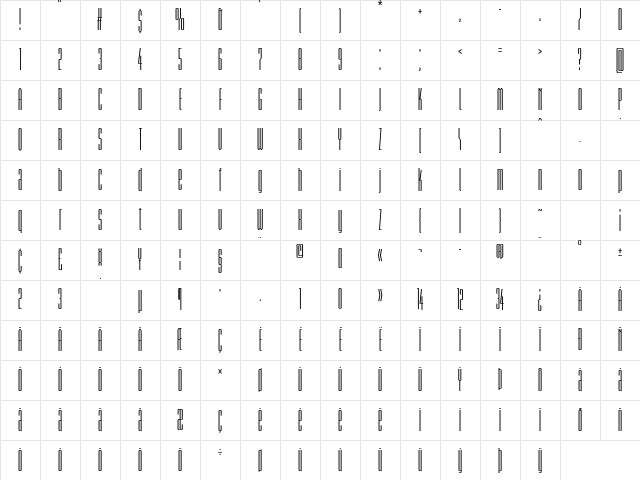
Briem Akademi Std Semibold Compressed
Style: Semibold Compressed
Designer: Gunnlaugur SE Briem
Complete Briem Akademi Std Semibold Compressed glyph index. Displaying only characters natively supported by Briem Akademi Std Semibold Compressed font.
Design Context for Briem Akademi Std
Briem Akademi Std is a composed and adaptable typeface that performs quietly and consistently across a wide range of design contexts. Its bold stroke weight gives it real presence on the page.